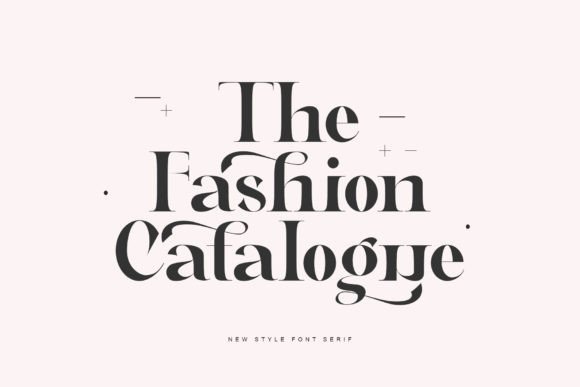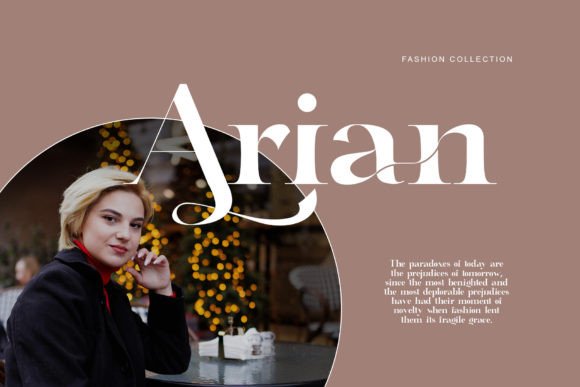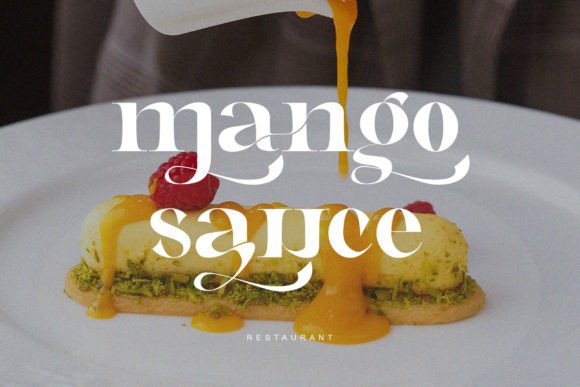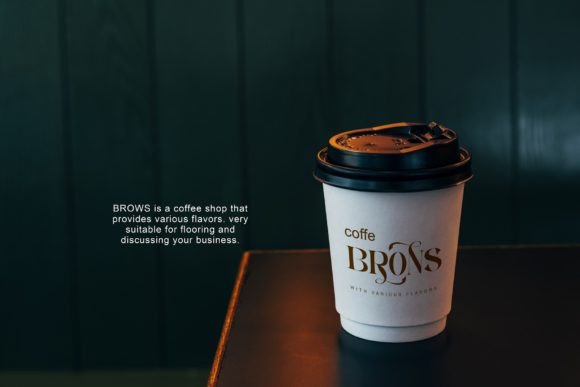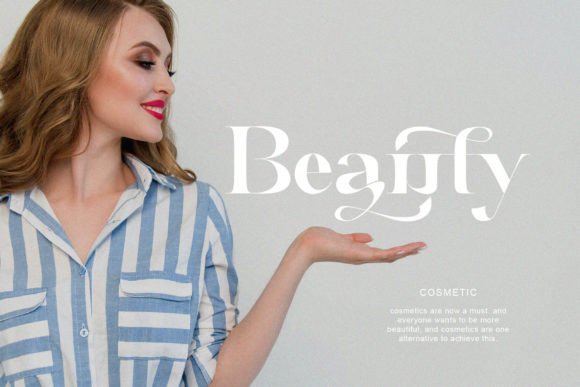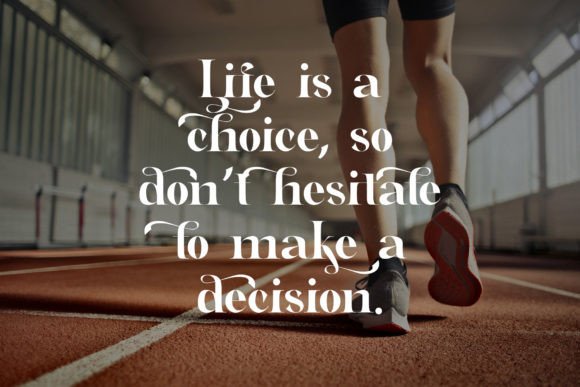
Introduction to Fankown Font
Fankown Modern Serif Typeface is inspired by the famous minimalist logo perfect for the purposes of designing templates, brochures, videos, advertising branding, logos, invitations, layout designs, elegant crafting, beauty design, and others.
This font is PUA encoded which means you can access all of the amazing glyphs and ligatures with ease .